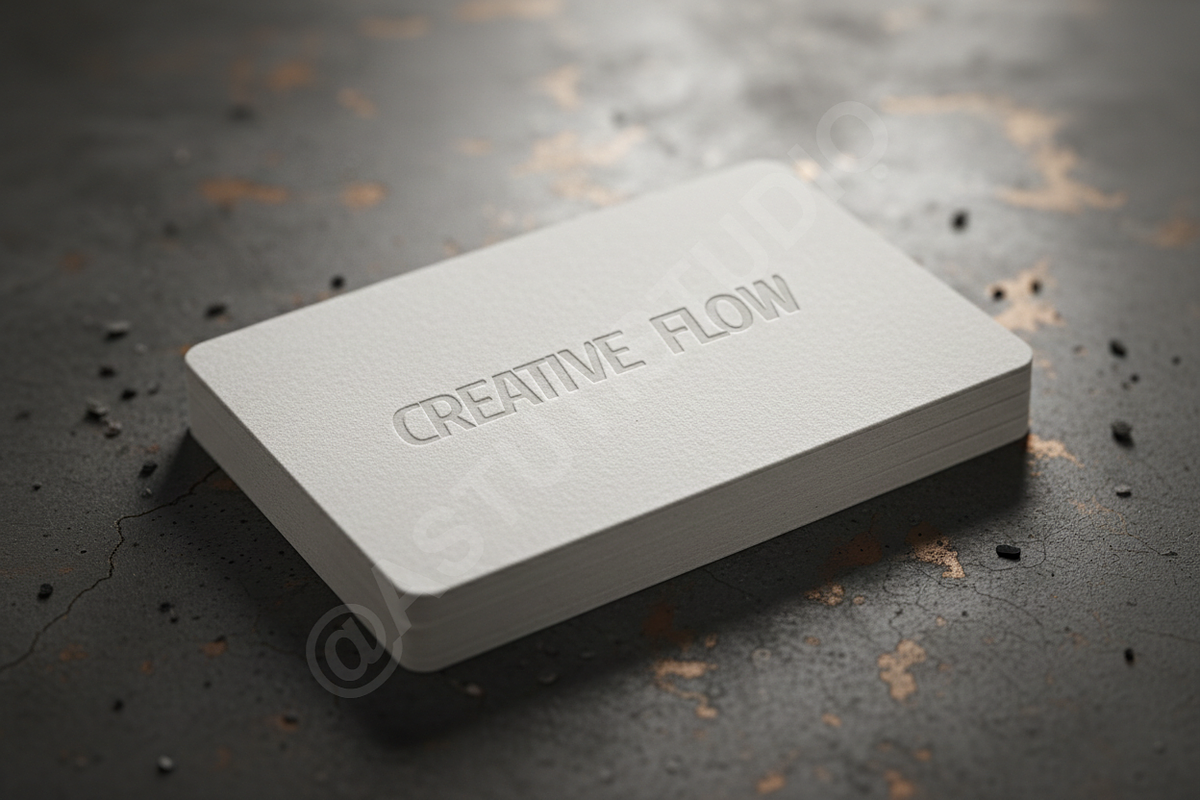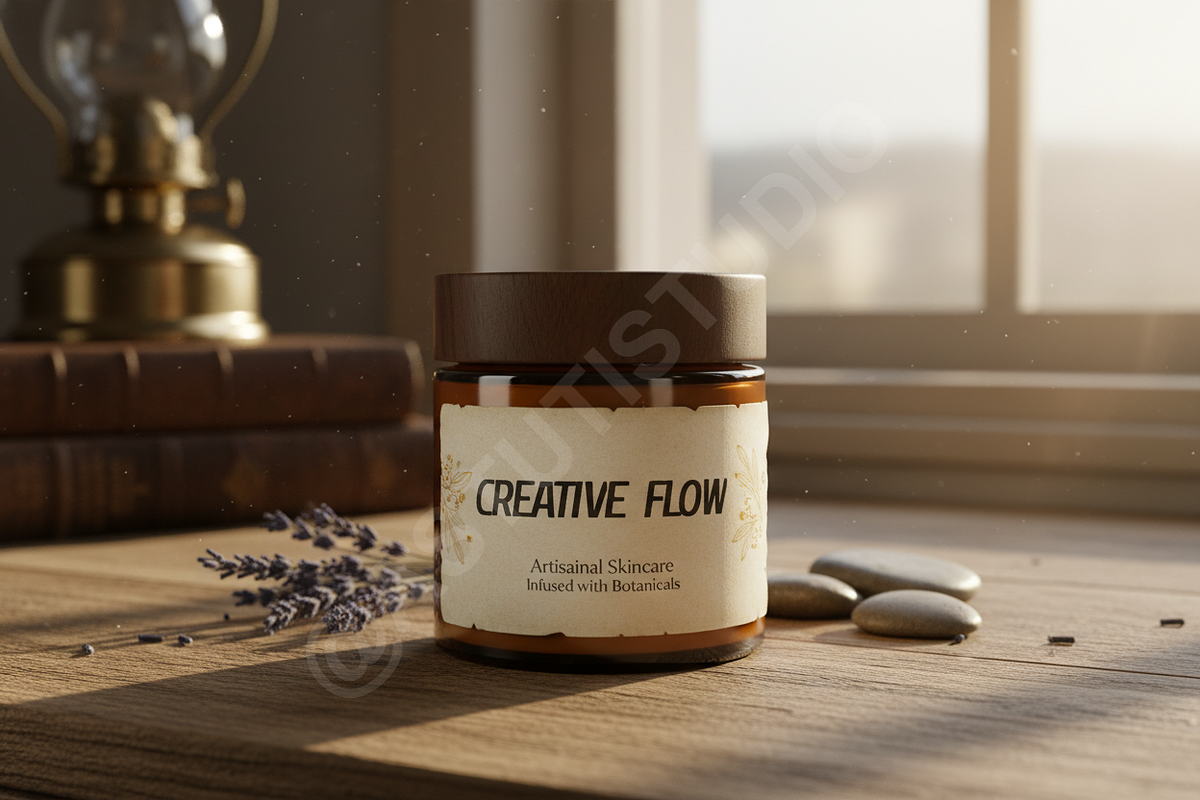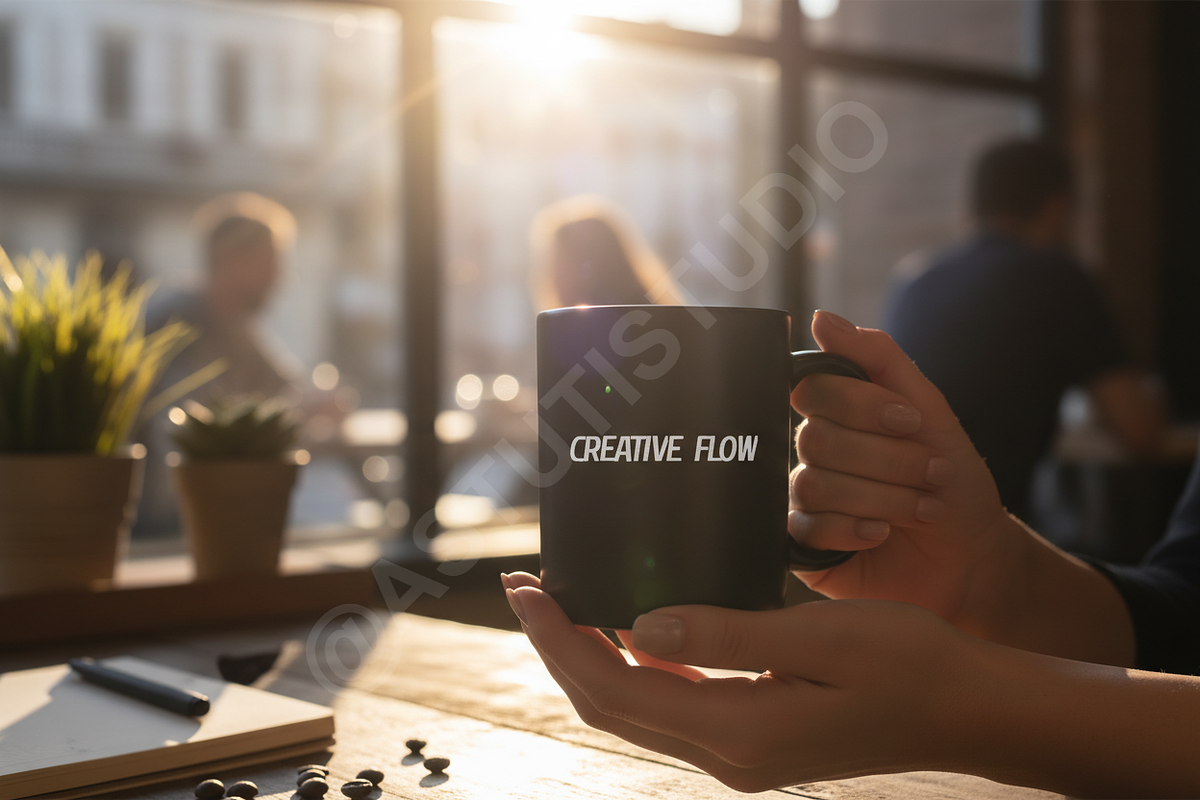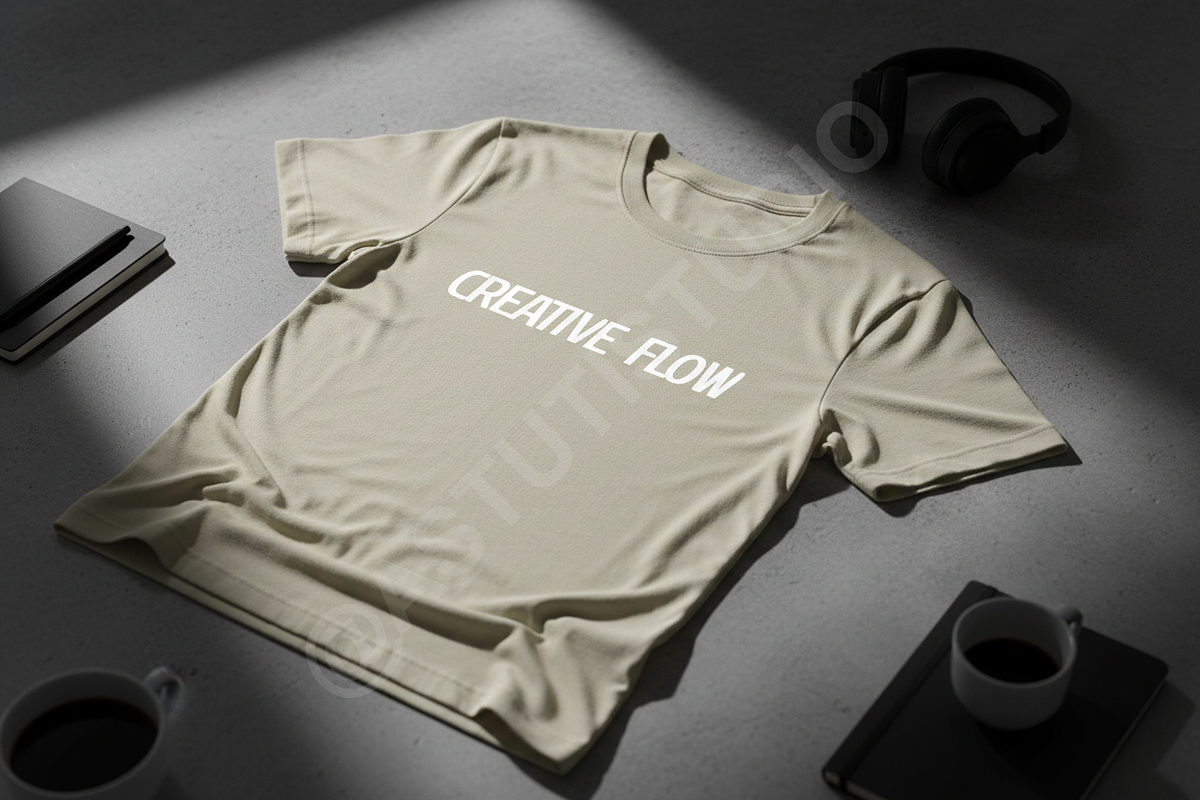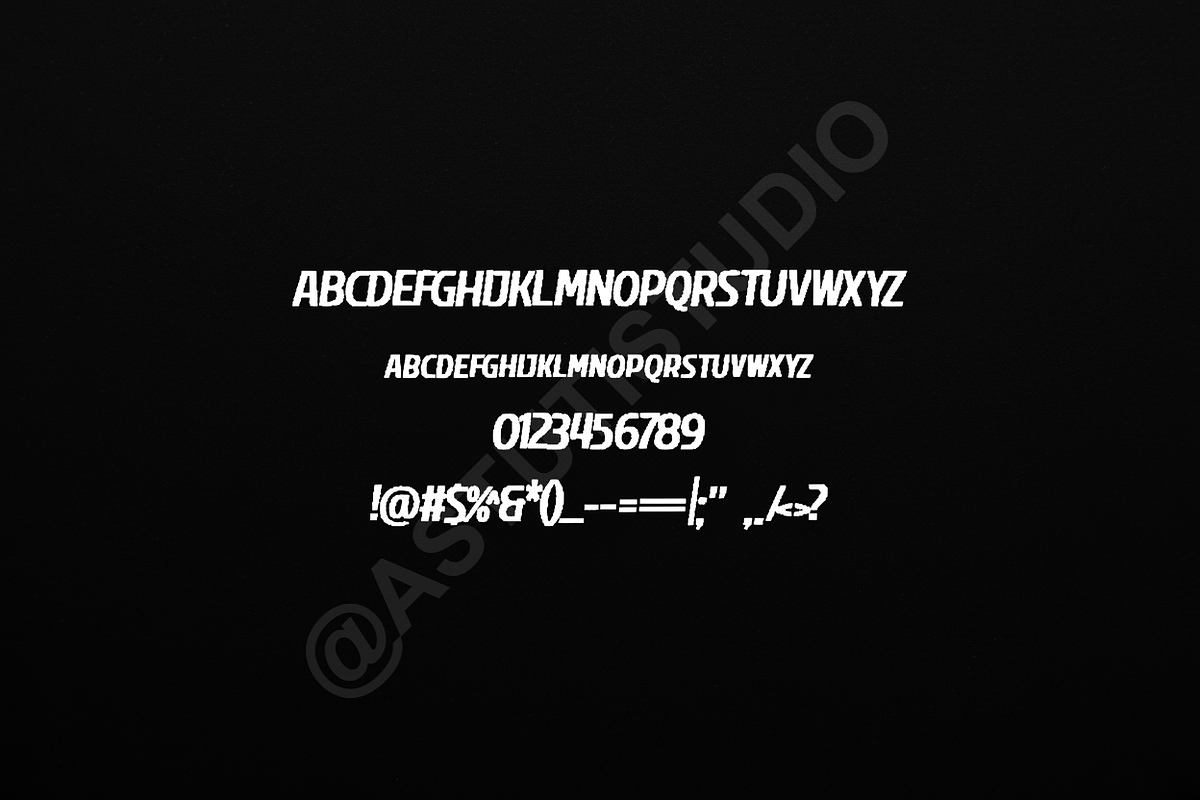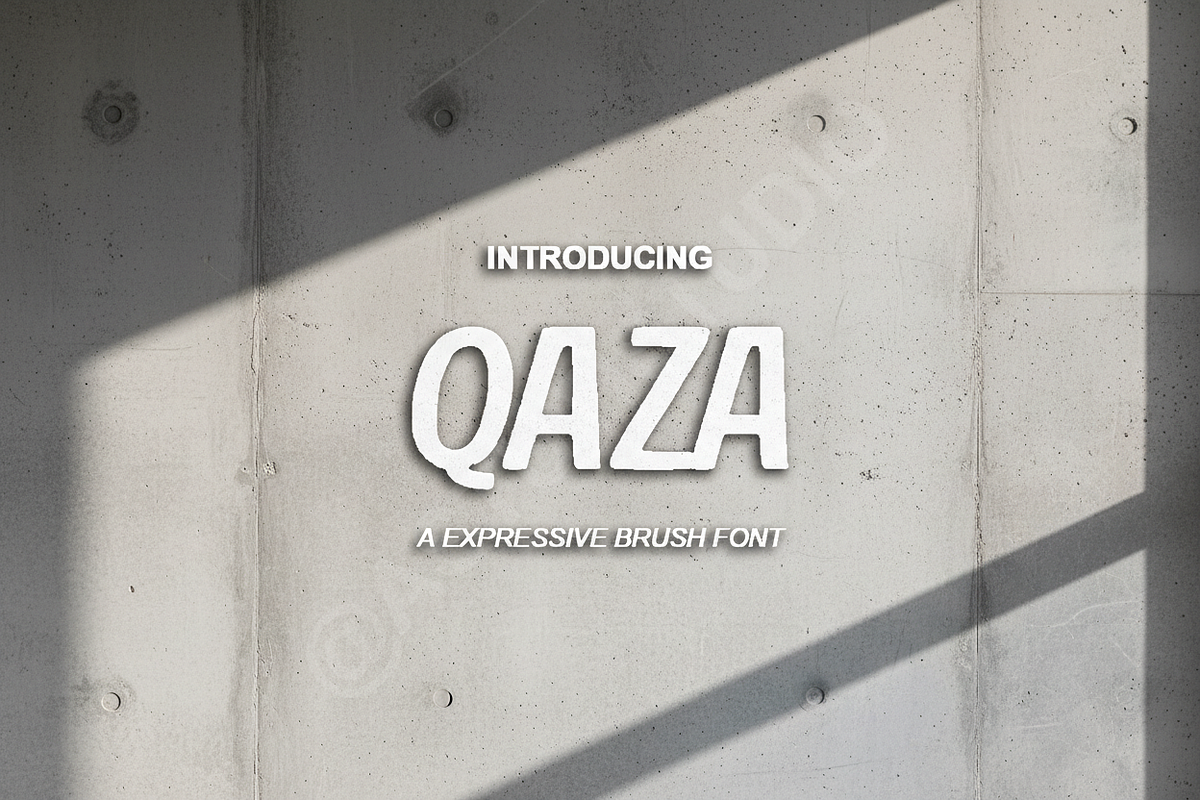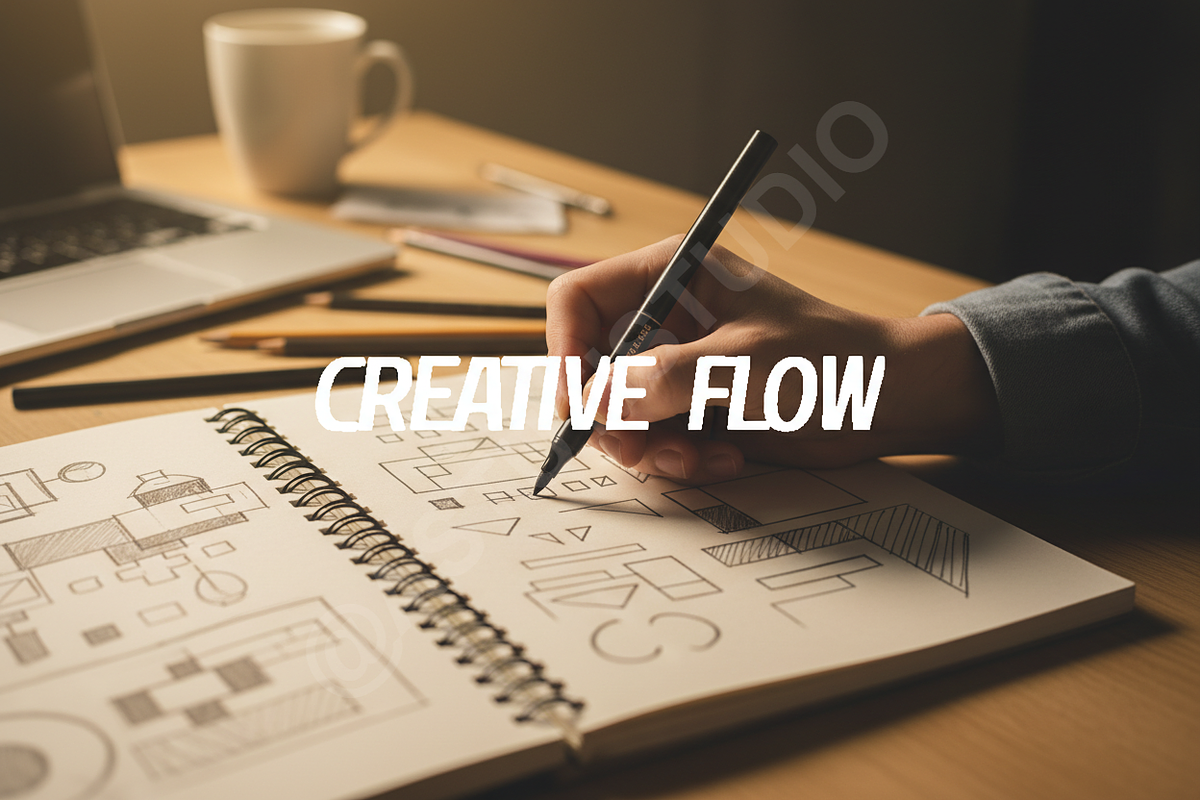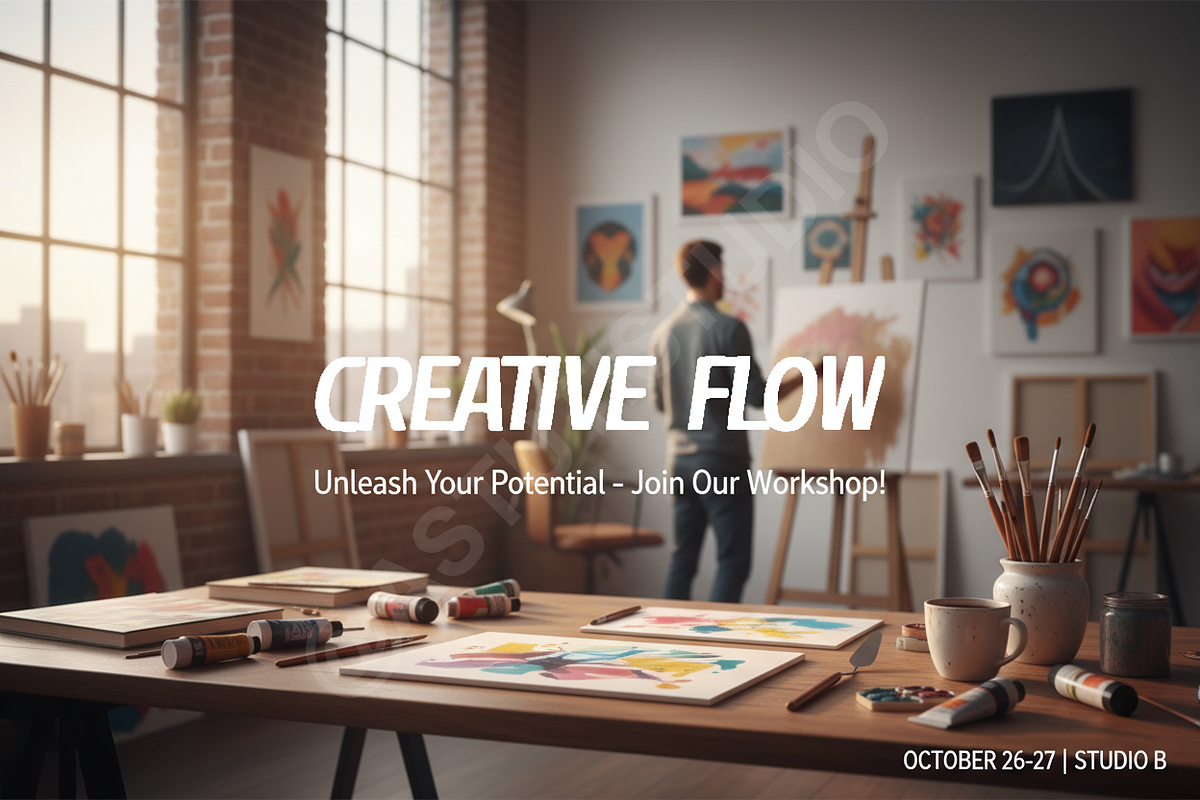
Qaza | Elegant Luxury Serif Typefac
Qaza is a sophisticated serif typeface meticulously crafted for the modern creative. Drawing inspiration from high-fashion aesthetics and contemporary minimalism, Qaza provides a refined touch to any design project. It is perfectly suited for luxury branding, high-end editorial layouts, and polished social media presence. Whether you are designing a logo for a boutique brand or setting type for a premium magazine, Qaza offers the balance and grace required for professional excellence.
- Unique, high-contrast character design
- Extensive set of elegant ligatures
- Full multilingual support for global reach
- Optimized for both print and digital platforms
- Precise, professional kerning